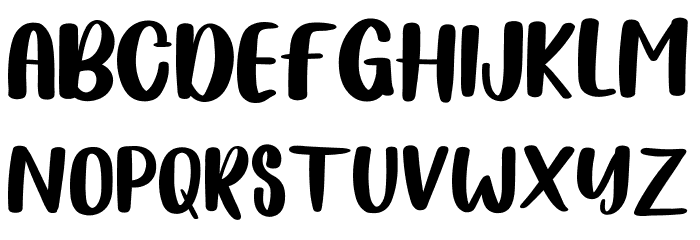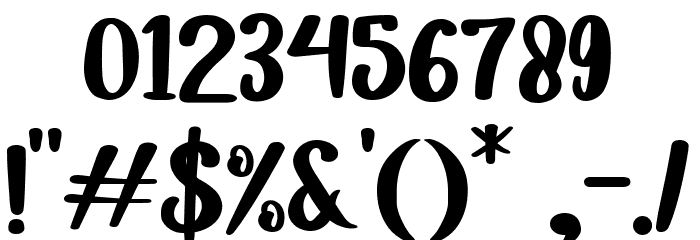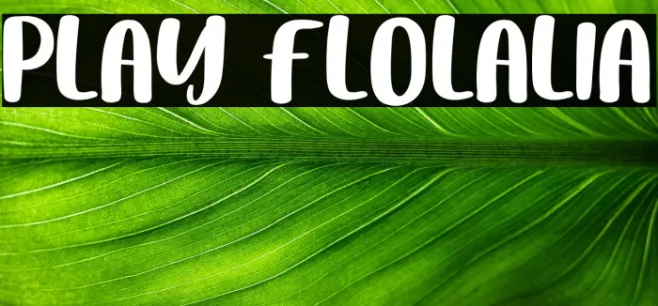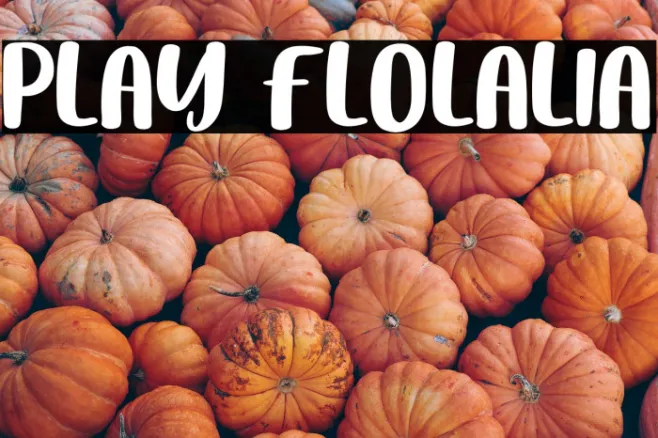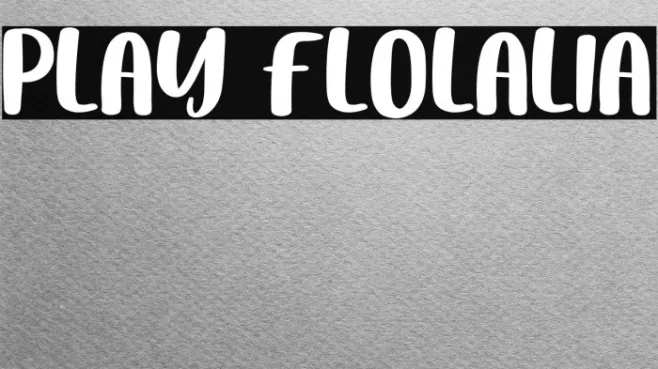
PLAY FLOLALIA Font
This font features a bold and playful style with a handwritten appearance. The letters are rounded and have a consistent thickness, giving them a friendly and approachable look. The uppercase and lowercase letters maintain a uniform height, creating a cohesive and balanced design. The numbers and special characters are designed to match the playful aesthetic, making them suitable for creative and informal projects. The overall style is modern and decorative, with a touch of whimsy that adds character to any text.
A bold, playful handwritten font with a modern and decorative style.
- Proposed Projects: Ideal for greeting cards, children's books, playful branding, and social media graphics.
- Overall Style: Modern, Decorative
- Use Case: Headlines, Logos, Social media graphics